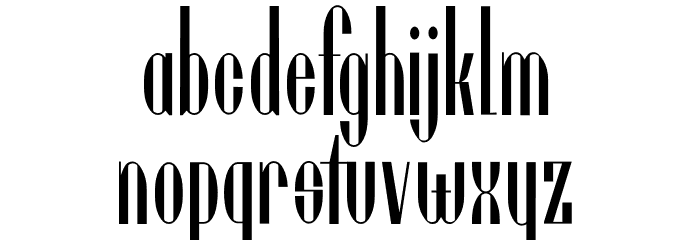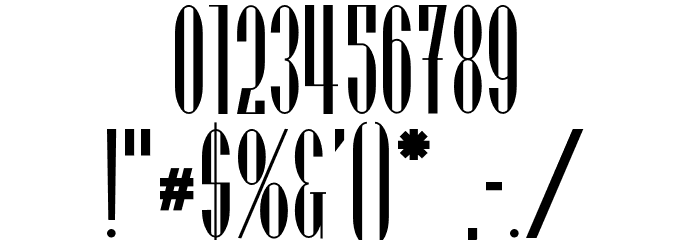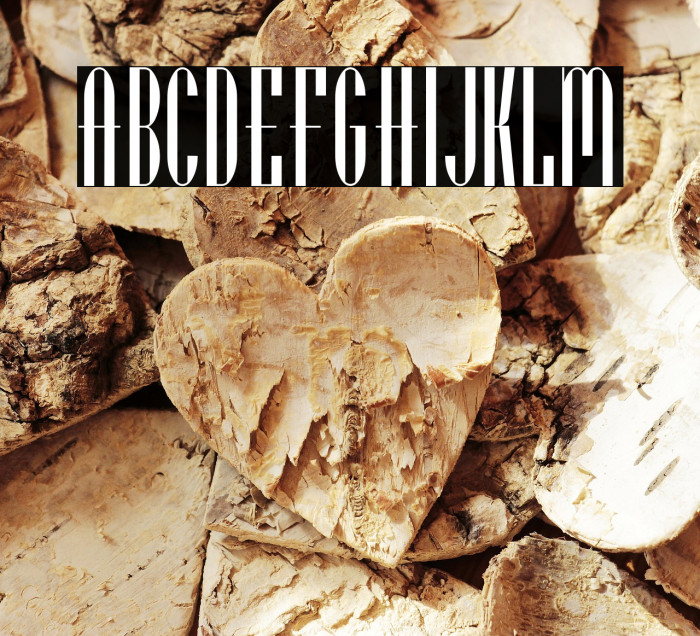
UtusiStar Font
This font features a striking and bold design with tall, narrow characters that exude a sense of elegance and modernity. The uppercase letters are particularly elongated, giving them a dramatic and sophisticated appearance. The lowercase letters maintain a consistent style, with a slight curvature that adds a touch of softness to the overall look. The numbers are equally tall and narrow, ensuring uniformity across all characters. Special characters are designed with the same attention to detail, making them seamlessly integrate with the rest of the font. The high contrast in stroke thickness enhances readability while maintaining a stylish flair.
A tall, narrow, and elegant font with high contrast and modern appeal.
- Proposed Projects: Ideal for fashion magazines, luxury branding, event invitations, and modern art posters.
- Character Spacing: Tight